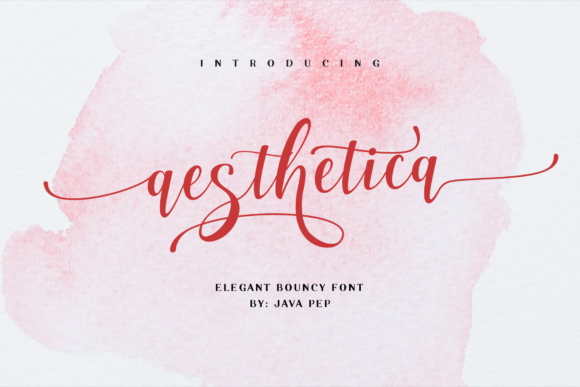
Aesthetica Font: Elevate Your Designs with Elegance and Sophistication
In the world of typography, few fonts manage to convey the essence of elegance and sophistication as effectively as Aesthetica. This beautiful, handwritten font has captured the hearts of designers and crafters alike, and for good reason. Aesthetica feels incredibly elegant and flowing, making it the perfect choice for a wide range of design projects that require a touch of refinement and luxury.
The Characteristics of Aesthetica Font
So, what makes Aesthetica stand out from the crowd? Here are just a few of its key characteristics:
• Varying Baseline: Aesthetica’s varying baseline gives it a beautifully organic feel, reminiscent of handwritten text. This feature adds a touch of whimsy and personality to your designs, making them feel more approachable and human.
• Smooth Lines: The smooth lines of Aesthetica are a hallmark of its elegance. They give the font a sense of fluidity and movement, making it perfect for designs that require a sense of dynamism and energy.
• Gorgeous Glyphs: Aesthetica’s glyphs are truly stunning. Each one has been carefully crafted to add a touch of beauty and sophistication to your designs. From the intricate details to the flowing curves, every glyph is a work of art.
• Stunning Alternates: One of the things that sets Aesthetica apart from other fonts is its range of stunning alternates. These alternates give you the flexibility to add variety and interest to your designs, making them feel more nuanced and complex.
Uses for Aesthetica Font
Aesthetica is an incredibly versatile font, and its uses are limited only by your imagination. Here are a few ideas to get you started:
• Wedding Invitations: Aesthetica is the perfect choice for wedding invitations. Its elegant, flowing lines and beautiful glyphs make it a fitting choice for what is often one of the most special days of a couple’s life.
• Thank You Cards: Aesthetica’s sense of sophistication and refinement makes it a great choice for thank you cards. Whether you’re expressing gratitude to a friend, family member, or business associate, this font is sure to make your message feel special.
• Quotes: Aesthetica’s beautiful lines and gorgeous glyphs make it a great choice for quotes. Whether you’re creating a social media graphic or a standalone image, this font is sure to add a touch of elegance and sophistication to your message.
• Greeting Cards: From birthday cards to holiday cards, Aesthetica is a great choice for any type of greeting card. Its range of alternates and gorgeous glyphs make it easy to add a personal touch to your message.
• Logos: Aesthetica’s sense of elegance and sophistication make it a great choice for logos. Whether you’re creating a logo for a business or personal brand, this font is sure to help you make a lasting impression.
• Business Cards: Aesthetica’s smooth lines and beautiful glyphs make it a great choice for business cards. Its sense of refinement and luxury is sure to help you stand out in a crowded business world.
Why Designers and Crafters Love Aesthetica Font
So, why do designers and crafters love Aesthetica? Here are just a few reasons:
• Elegance: Aesthetica’s sense of elegance and sophistication is unmatched. Its beautiful lines, gorgeous glyphs, and stunning alternates make it a font that is sure to elevate any design.
• Versatility: Aesthetica is an incredibly versatile font. Its range of alternates and gorgeous glyphs make it easy to use in a wide range of design projects, from wedding invitations to logos.
• Easy to Read: Despite its elegant, flowing lines, Aesthetica is incredibly easy to read. This makes it a great choice for designs that require a touch of sophistication and refinement, but still need to be clear and legible.
In conclusion, Aesthetica is a truly stunning font that is sure to elevate any design. Its sense of elegance and sophistication, combined with its versatility and ease of use, make it a favorite among designers and crafters. Whether you’re creating wedding invitations, logos, or business cards, Aesthetica is a great choice. So why not give it a try and see the difference it can make in your designs?